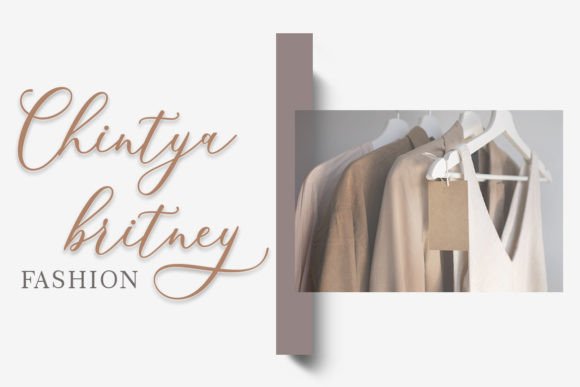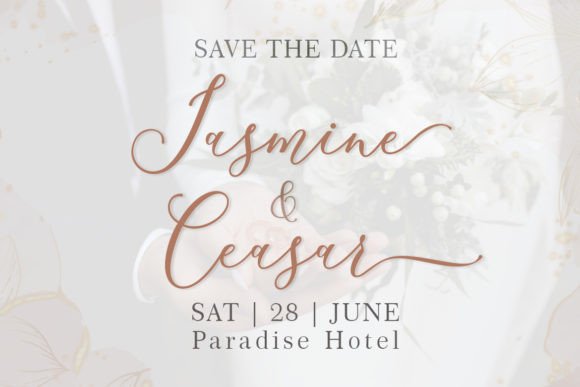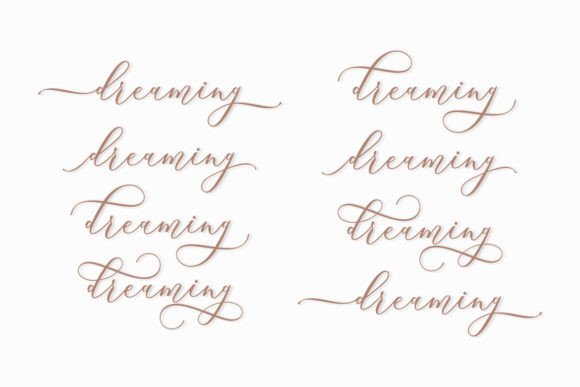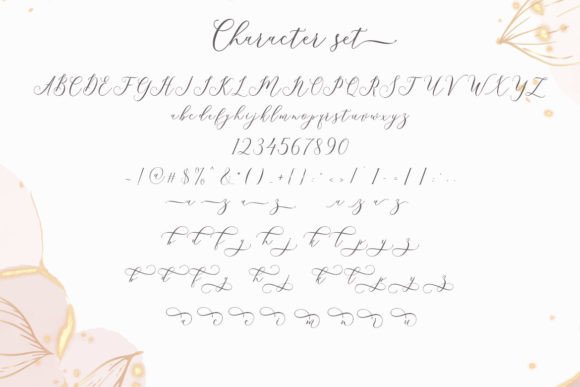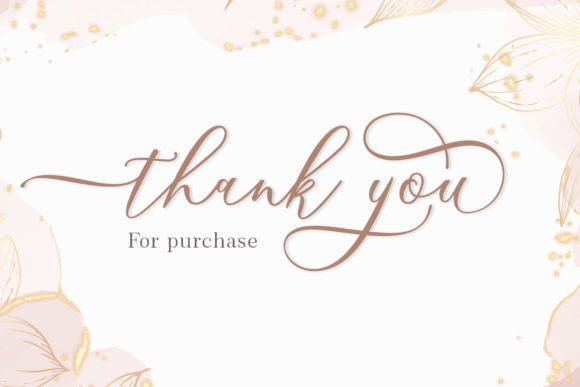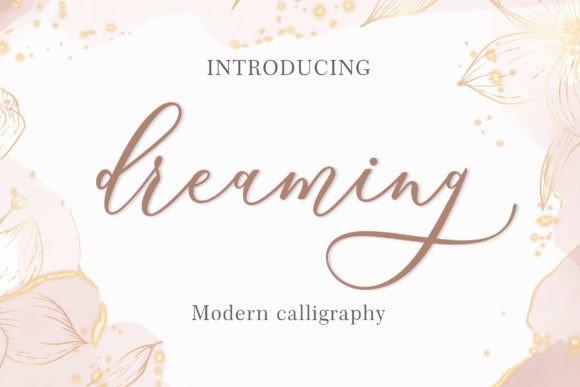
Dreaming Font: Elevate Your Designs with this Dazzling Script Font
Are you tired of using the same old fonts in your designs? Look no further than the Dreaming Font, a stunning script font that is sure to take your creations to the next level. With its neat and detailed craftsmanship, this font is a wonderful asset to any font library, capable of enhancing any project, regardless of the topic.
What is Dreaming Font?
Dreaming Font is a beautifully designed script font that exudes elegance and sophistication. Its intricate details and flowing lines make it perfect for a wide range of design applications, from wedding invitations and branding materials to social media graphics and blog posts.
Key Features of Dreaming Font
- Neatly Crafted: Dreaming Font is meticulously designed to ensure that every letter and swash is perfect, making it a joy to use in any design project.
- Highly Detailed: With its intricate details and ornate flourishes, this font is sure to add a touch of luxury and sophistication to any design.
- Versatile: Whether you’re working on a wedding invitation, a fashion brand, or a blog post, Dreaming Font is versatile enough to fit any style or theme.
- Easy to Read: Despite its ornate nature, Dreaming Font is surprisingly easy to read, making it perfect for body text as well as headings.
Why Use Dreaming Font?
There are many reasons why designers and crafters should consider adding Dreaming Font to their font library. Here are just a few:
- Add a Touch of Elegance: Dreaming Font is the perfect way to add a touch of elegance and sophistication to any design project.
- Stand Out from the Crowd: With its unique and intricate design, Dreaming Font is sure to make your designs stand out from the crowd.
- Perfect for Branding: This font is ideal for branding projects, as it can help to create a luxurious and high-end feel.
- Great for Creative Projects: Whether you’re working on a DIY craft project or a creative design project, Dreaming Font is a great choice.
How to Use Dreaming Font
Using Dreaming Font is easy. Here are a few tips to get you started:
- Pair it with a Simple Font: For maximum impact, pair Dreaming Font with a simple font, such as a sans-serif font, to create a striking contrast.
- Use it for Headings: Dreaming Font is perfect for headings and titles, where its intricate details and flourishes can really shine.
- Experiment with Colors: Don’t be afraid to experiment with different colors and textures to really make your design pop.
In conclusion, Dreaming Font is a stunning script font that is sure to elevate any design project. With its neat and detailed craftsmanship, versatility, and ease of use, this font is a wonderful asset to any font library. Whether you’re a designer, crafter, or DIY enthusiast, Dreaming Font is a great choice for anyone looking to add a touch of elegance and sophistication to their creations.
- Use Dreaming Font to Create a Luxurious Feel: Whether you’re working on a branding project or a DIY craft project, use Dreaming Font to create a luxurious and high-end feel.
- Experiment with Different Sizes: Don’t be afraid to experiment with different sizes and scales to really make your design pop.
- Pair it with Other Fonts: Try pairing Dreaming Font with other fonts to create a unique and interesting contrast.